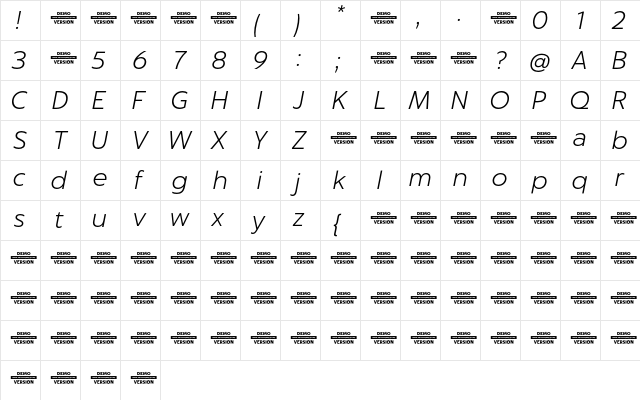
Captura Light Italic Demo
| Designer | Anita J߲geleit |
Design Context for Captura Typeface
Captura offers clean, dependable letterforms without strong stylistic allegiance, making it a practical choice for designers who need flexibility. The dynamic lean of this cut emphasises speed and emphasis in any layout. Its slender proportions lend an understated elegance to any composition.